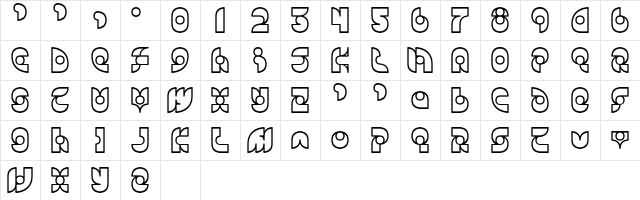
Candle Standard Free Font
Candle Standard
Style: Standard
Candle Family
Complete Candle Standard glyph index. Displaying only characters natively supported by Candle Standard font.
Design Context for Candle
Candle is a composed and adaptable typeface that performs quietly and consistently across a wide range of design contexts.